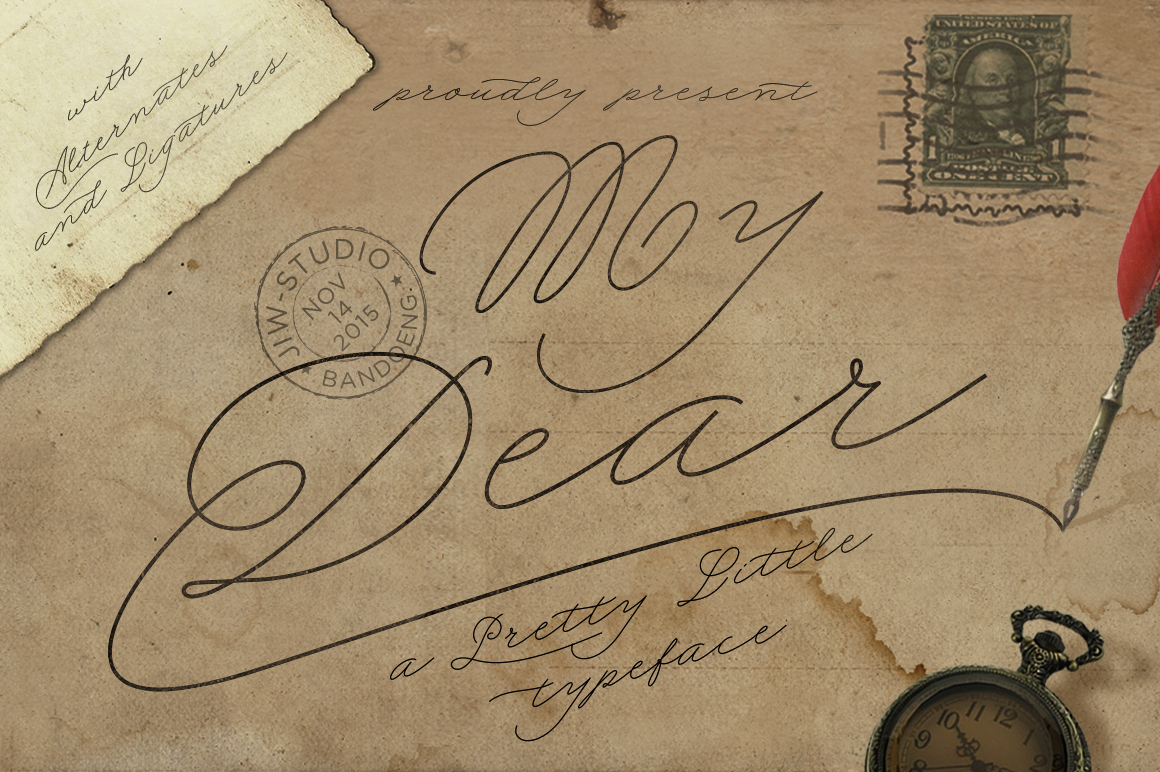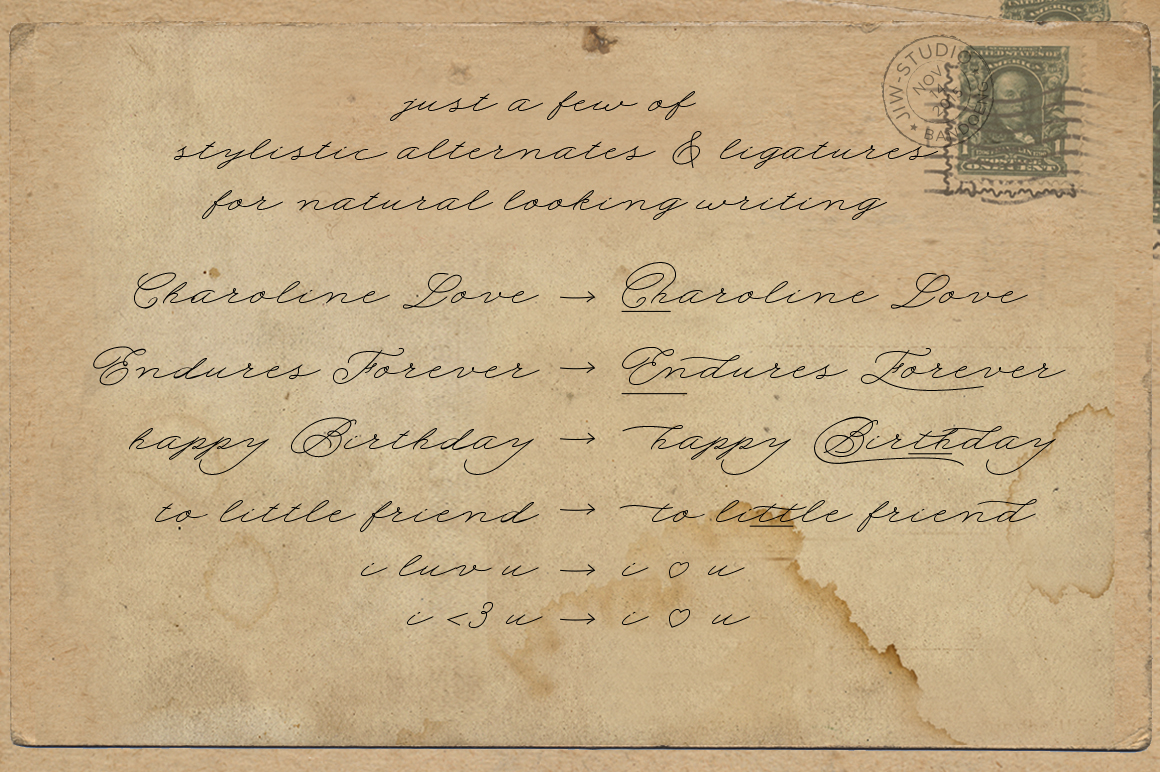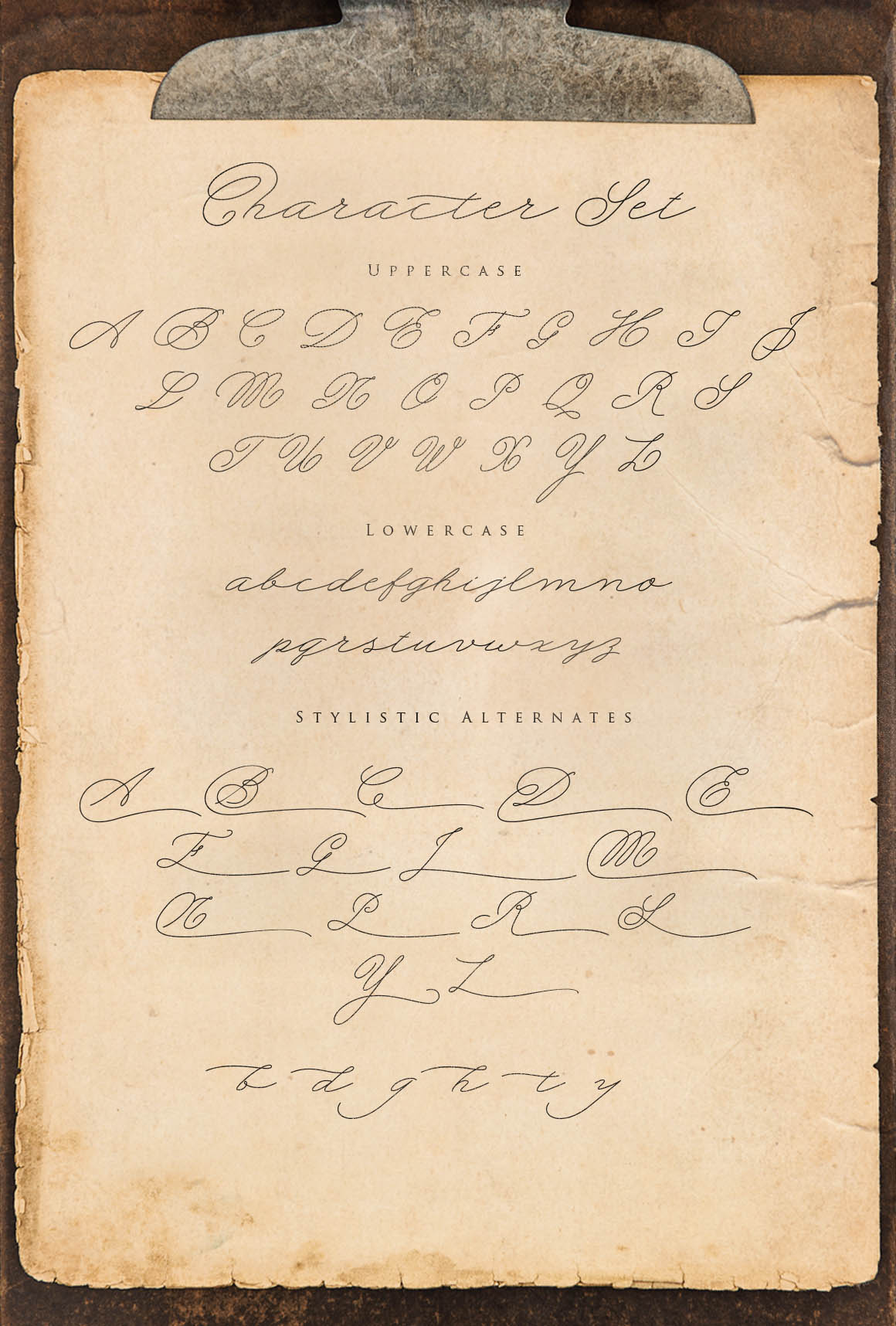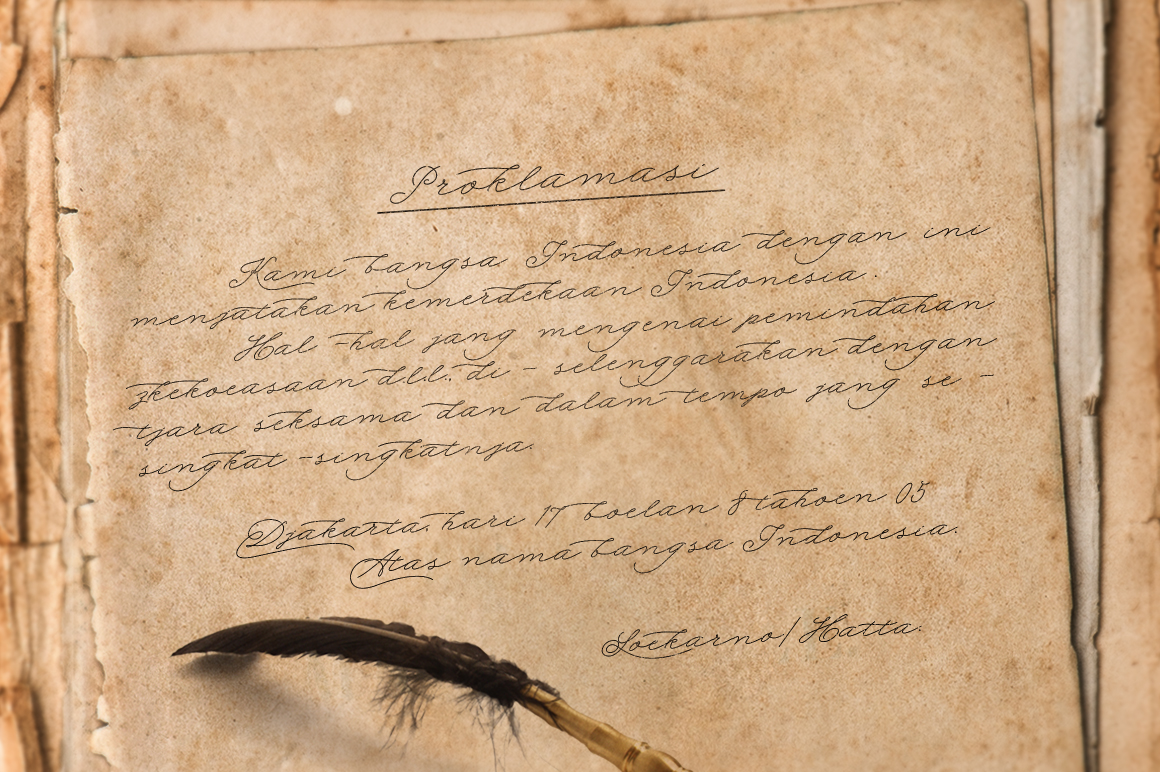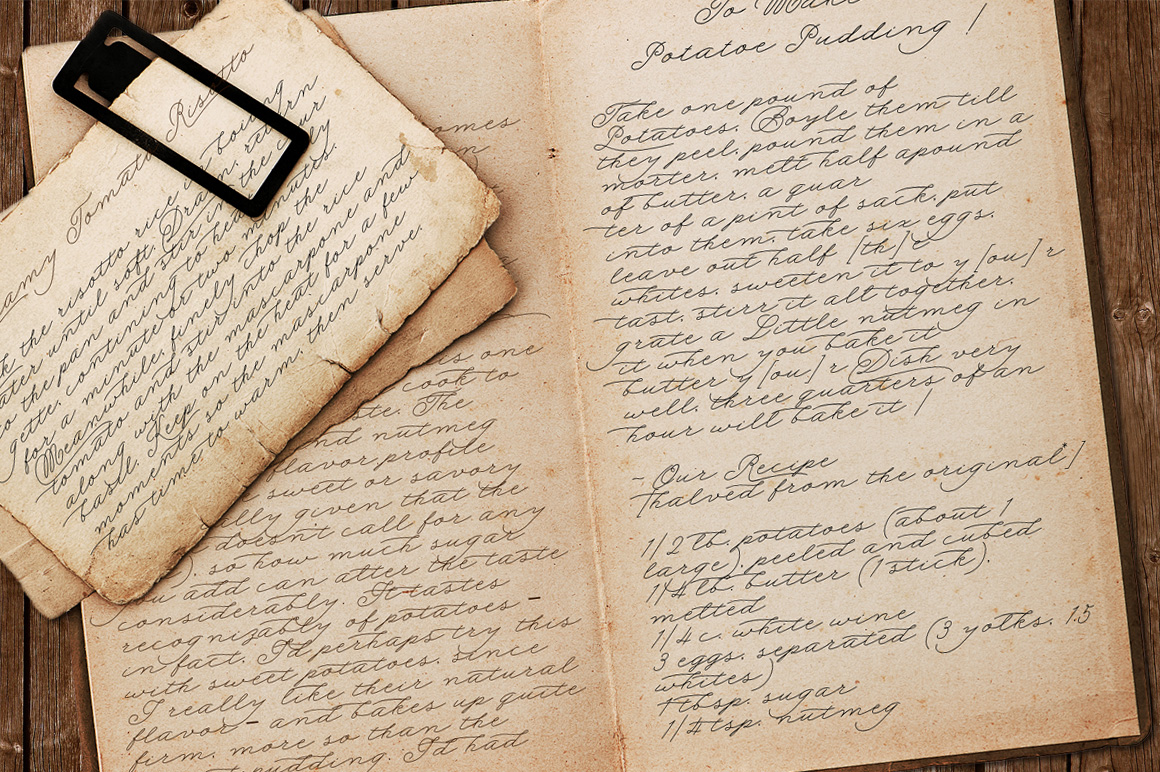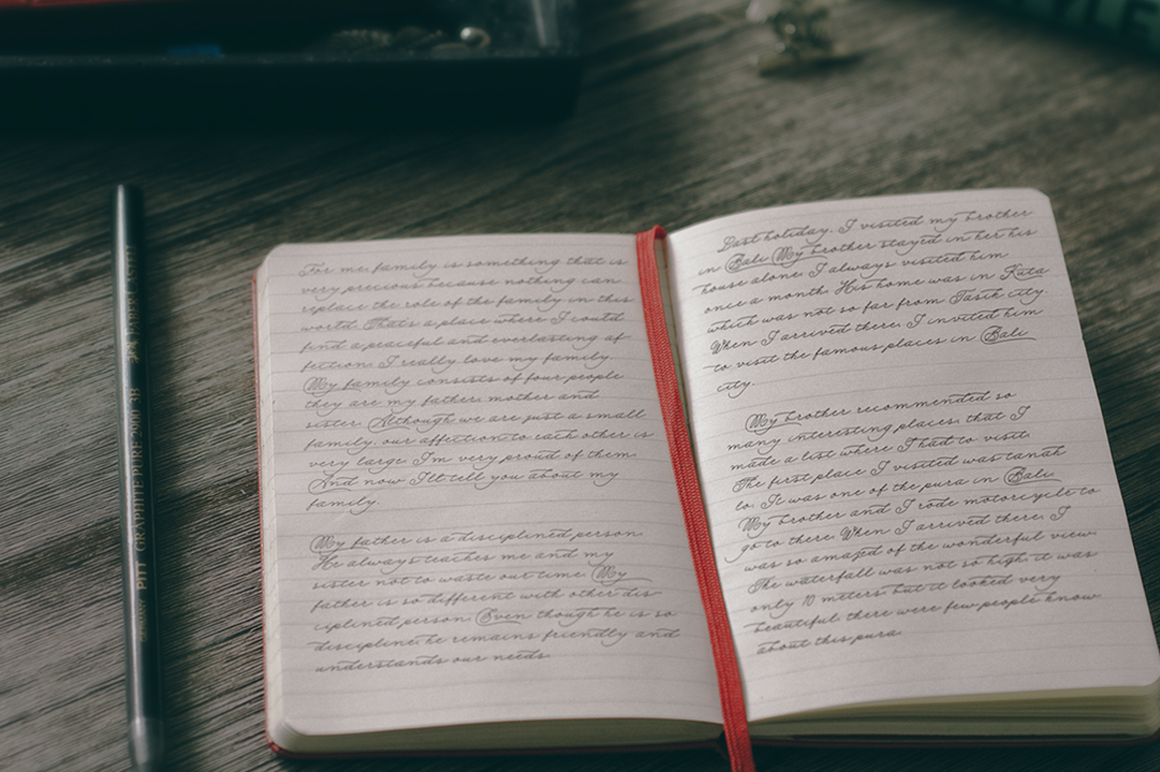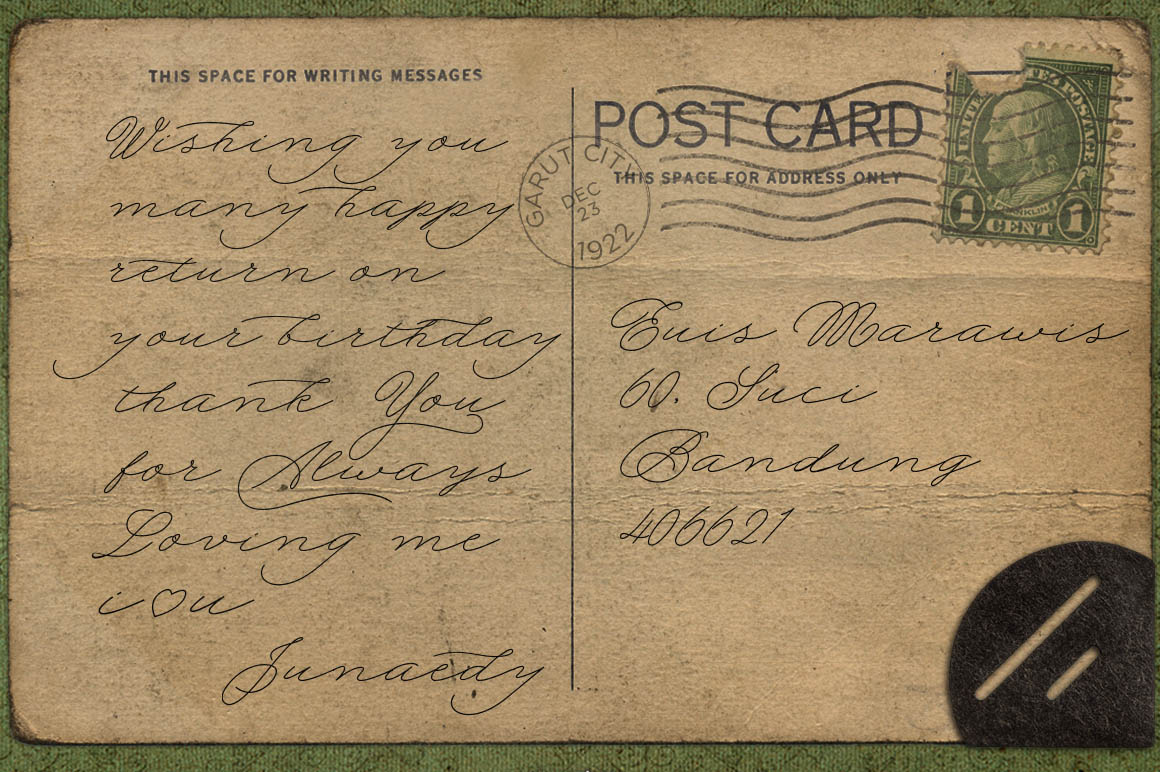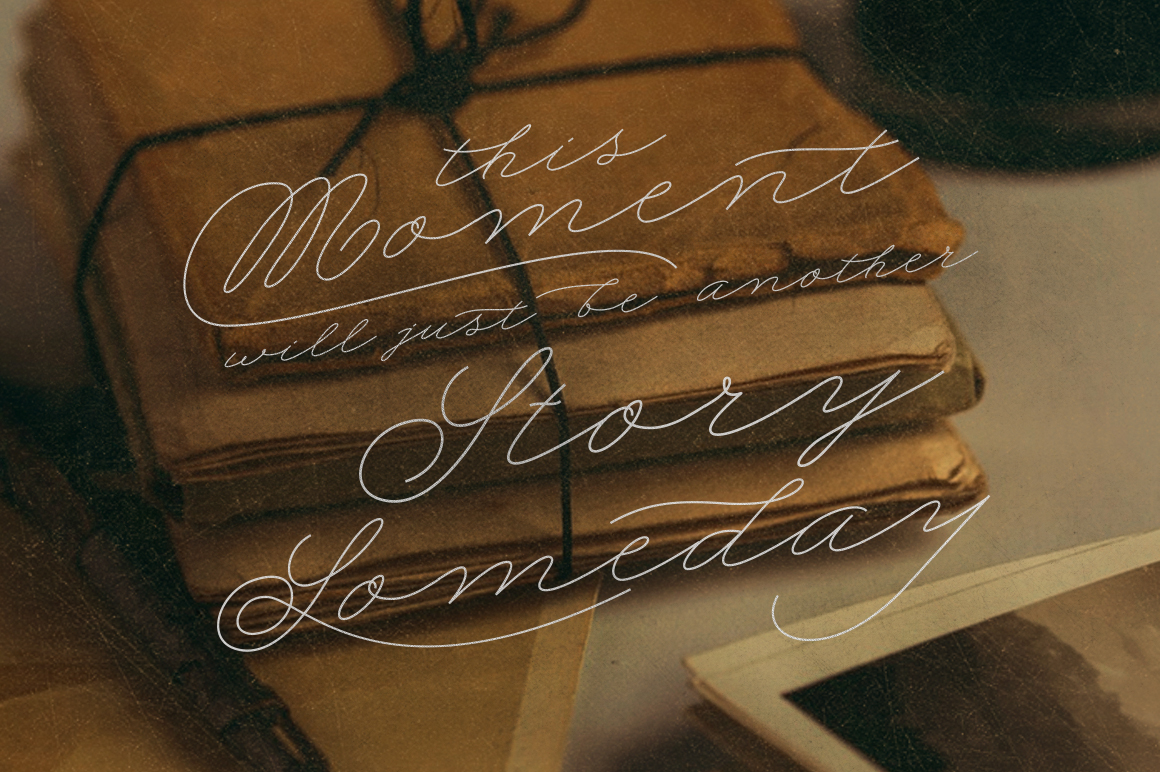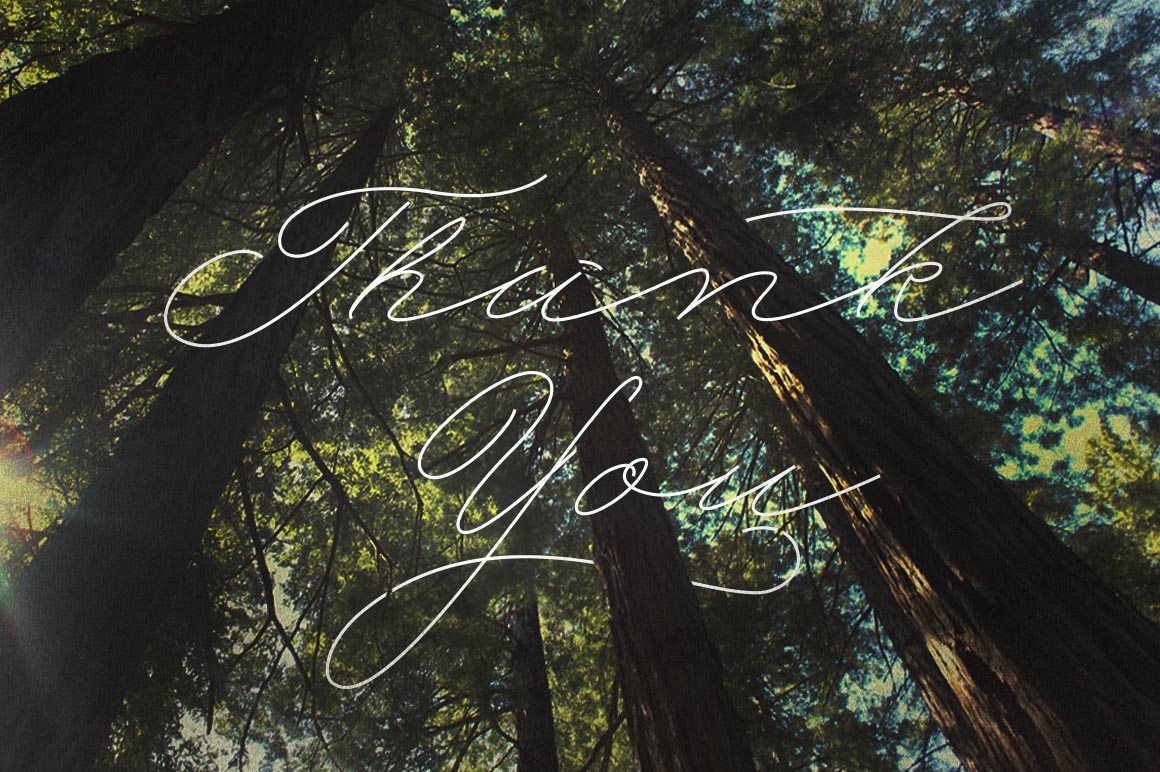
My Dear Font
About My Dear Font
My Dear is a calligraphy font, defined by a classic style and elegant touch. Inspired by lettering on old vintage postcards and manuscripts, this monoline font is sure to give your designs a touch of humanism and endearment.